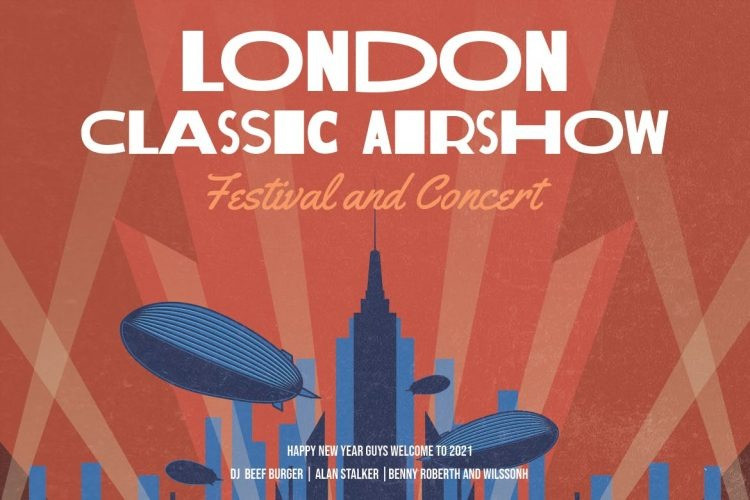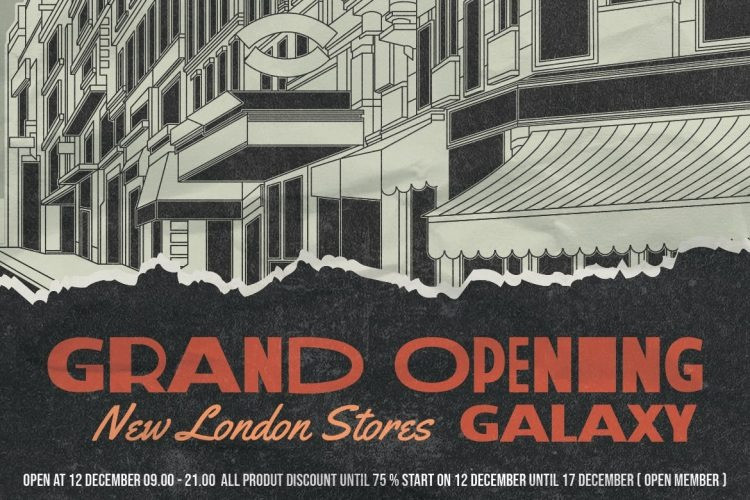
Johnie Blackerson Display Font
Johnie Blackerson is a bold, chunky lettered display font. Masterfully designed to become a true favorite, this font has the potential to bring each of your creative ideas to the highest level!